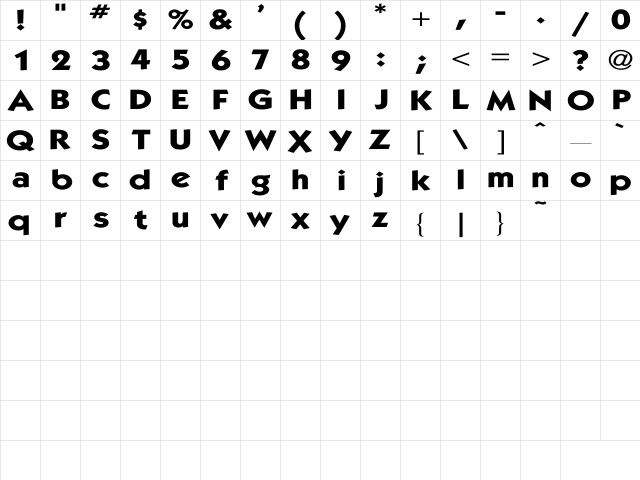
Complete Kabel Wd Book glyph index. Displaying only characters natively supported by Kabel Wd Book font.
Kabel Wd is a composed and adaptable typeface that performs quietly and consistently across a wide range of design contexts.